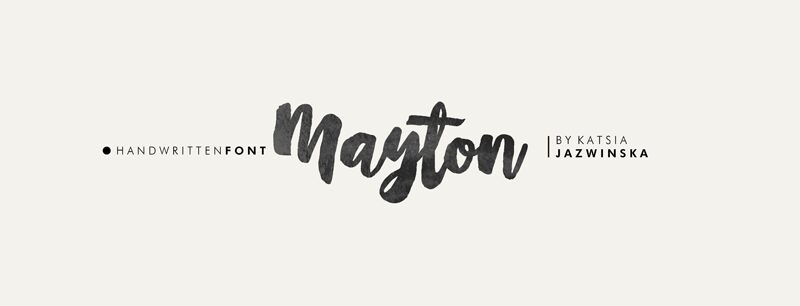
Mayton
Mayton is a captivating hand-made brush font that exudes an imperfect, gritty charm. Its irregular baseline and distinct, hand-painted characters create a sense of effortless elegance, making it an ideal choice for editorial, branding, and display applications.
The font's unique character shapes and textural quality lend themselves well to a wide range of design styles, from rustic and vintage to modern and edgy. Mayton's versatility allows designers to craft compelling typographic compositions that convey a sense of authenticity and personality, whether in headlines, logotypes, or decorative elements.
Features:
- Uppercase & lowercase
- Punctuation & numerals
- Multi-language characters
- 200+ Glyphs